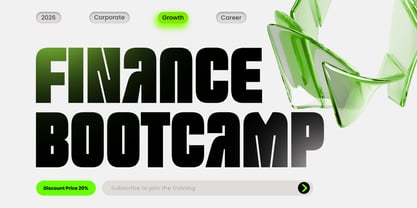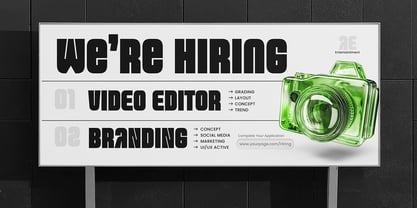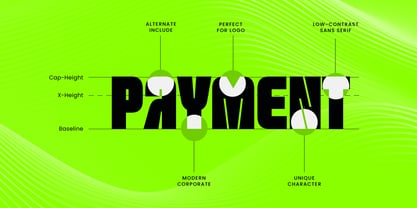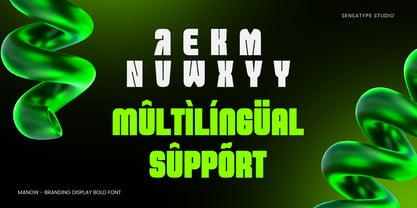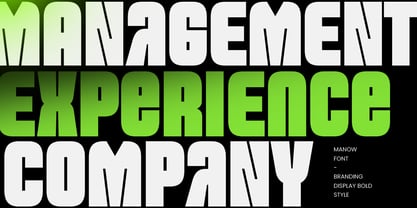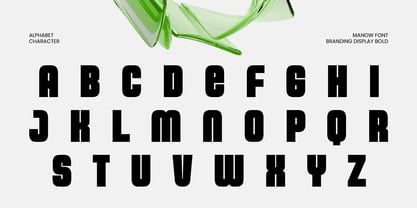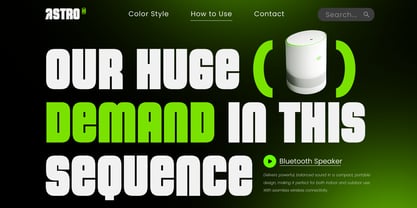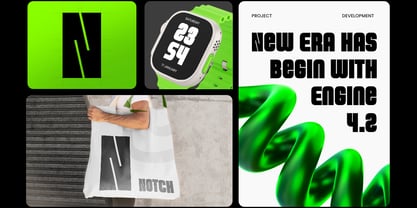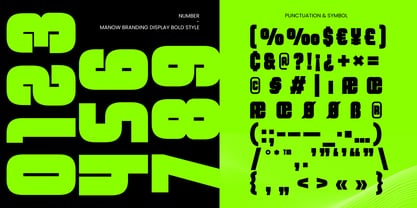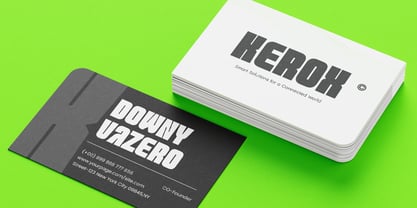
Manow
A família de fontes Manow foi desenhada por Zamroni Hamzah e publicada pela Sensatype Studio. Manow contém 1 estilos. Saiba mais sobre esta família
MANOW is a branding display bold logo font built to deliver confident impact with clean, modern presence. Its bold structure and display-driven proportions create a strong typographic voice that feels professional, powerful, and instantly recognizable—ideal for brands that want to stand out fast.
Designed for brand identity systems and logo-focused typography, MANOW works seamlessly across wordmarks, logos, posters, packaging, website headers, signage, presentations, and social media graphics. Its bold weight ensures clarity at display sizes, making it a reliable choice for branding that needs strong visibility and modern simplicity.
Whether you’re building a startup identity, refreshing a corporate brand, or creating bold promotional visuals, MANOW provides a solid display foundation that keeps your branding consistent, modern, and memorable across digital and print use.
Inspiration Behind MANOW
MANOW is inspired by modern branding systems and bold display typography—where clarity, strength, and simplicity drive recognition. Built to support strong wordmarks and high-impact visual communication, it’s designed to perform across logos, headlines, posters, packaging, and digital campaigns with a confident, clean tone.
MANOW Font Features
• Bold display letterforms built for logo and branding use
• Strong readability for headlines and large text layouts
• Clean modern structure for professional brand systems
• Uppercase, lowercase, numerals, and punctuation included
• OpenType features for polished, flexible typesetting
Perfect For
• Branding logos, wordmarks, and identity systems
• Headlines, posters, banners, and promotional graphics
• Packaging, labels, and product presentation design
• Website headers, presentations, and social media visuals
• Signage and modern campaign typography
Multilingual Support
Afrikaans, Albanian, Asu, Basque, Bemba, Bena, Breton, Chiga, Cornish, Dutch, English, Estonian, Filipino, Finnish, Friulian, Galician, German, Gusii, Indonesian, Irish, Italian, Kabuverdianu, Kalenjin, Kinyarwanda, Luo, Luxembourgish, Luyia, Machame, Makhuwa-Meetto, Makonde, Malagasy, Manx, Morisyen, North Ndebele, Nyankole, Oromo, Portuguese, Quechua, Romansh, Rombo, Rundi, Rwa, Samburu, Sango, Sangu, Scottish Gaelic, Sena, Shambala, Shona, Soga, Somali, Spanish, Swahili, Swedish, Swiss, and more.
Make your branding louder and cleaner with MANOW—crafted for bold display logos and high-impact identity design. ✨